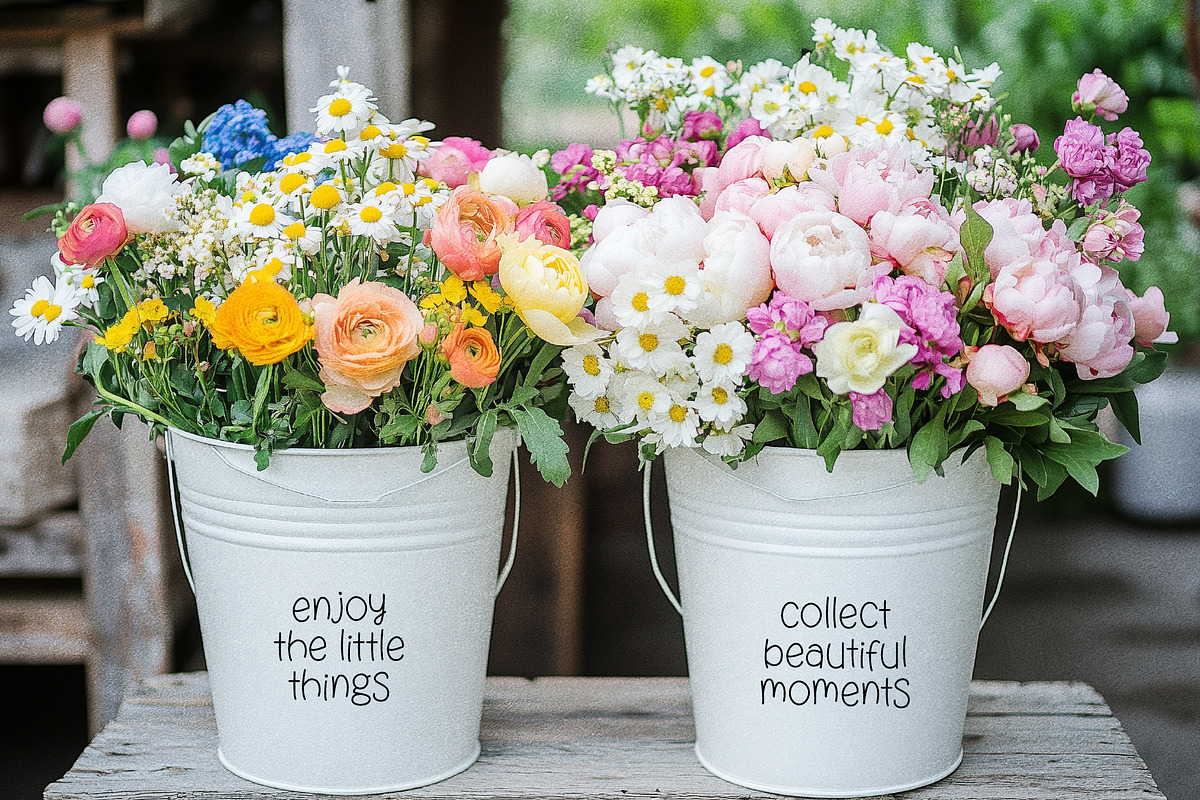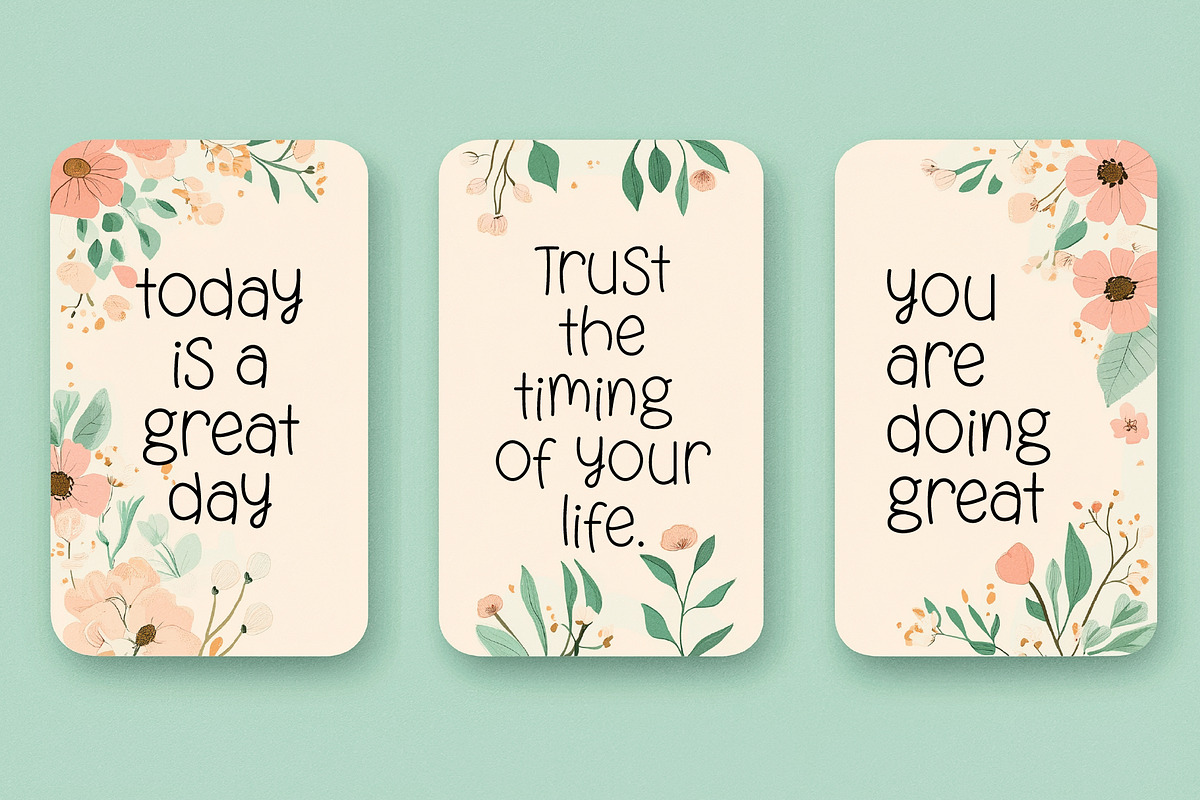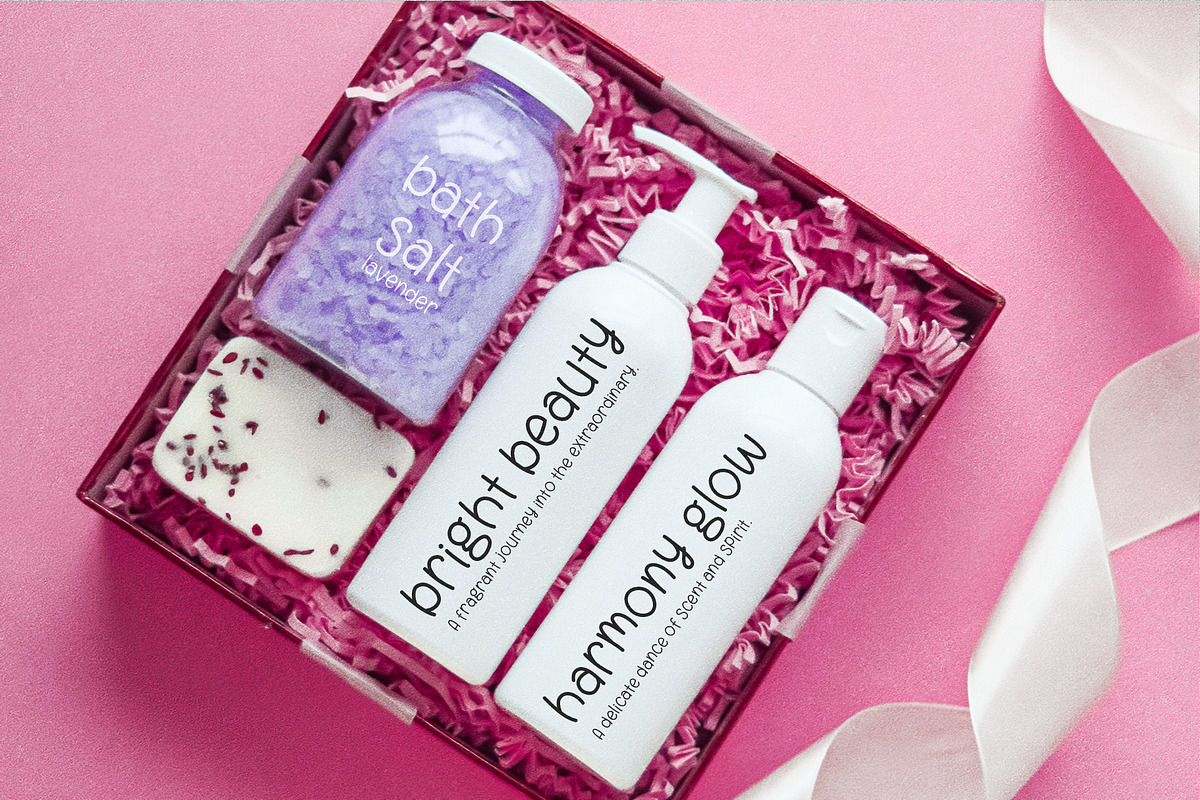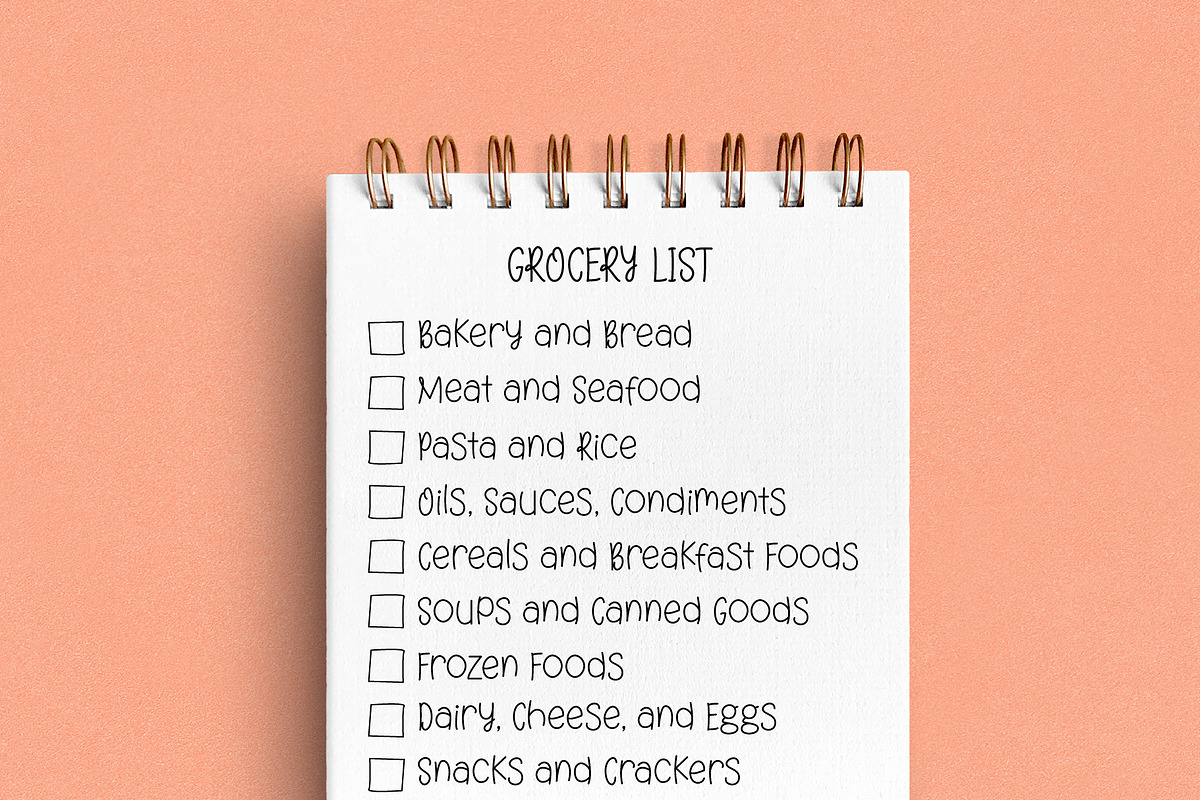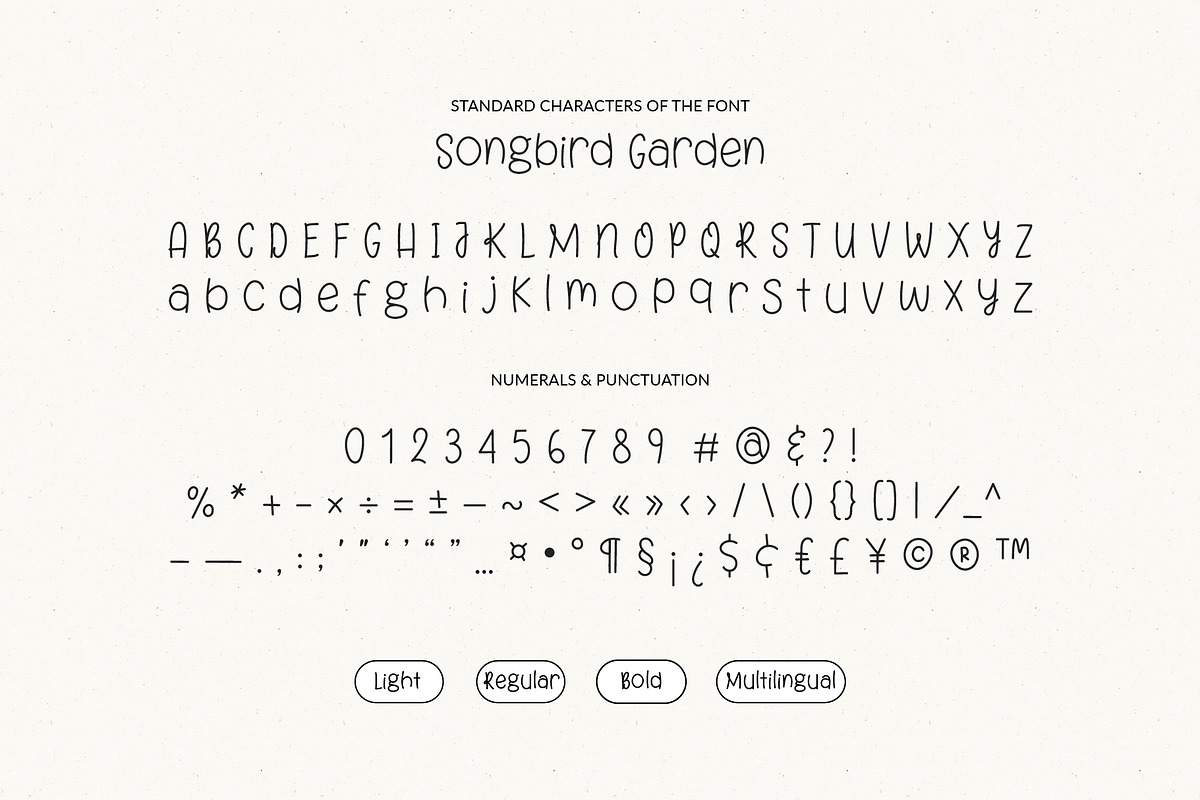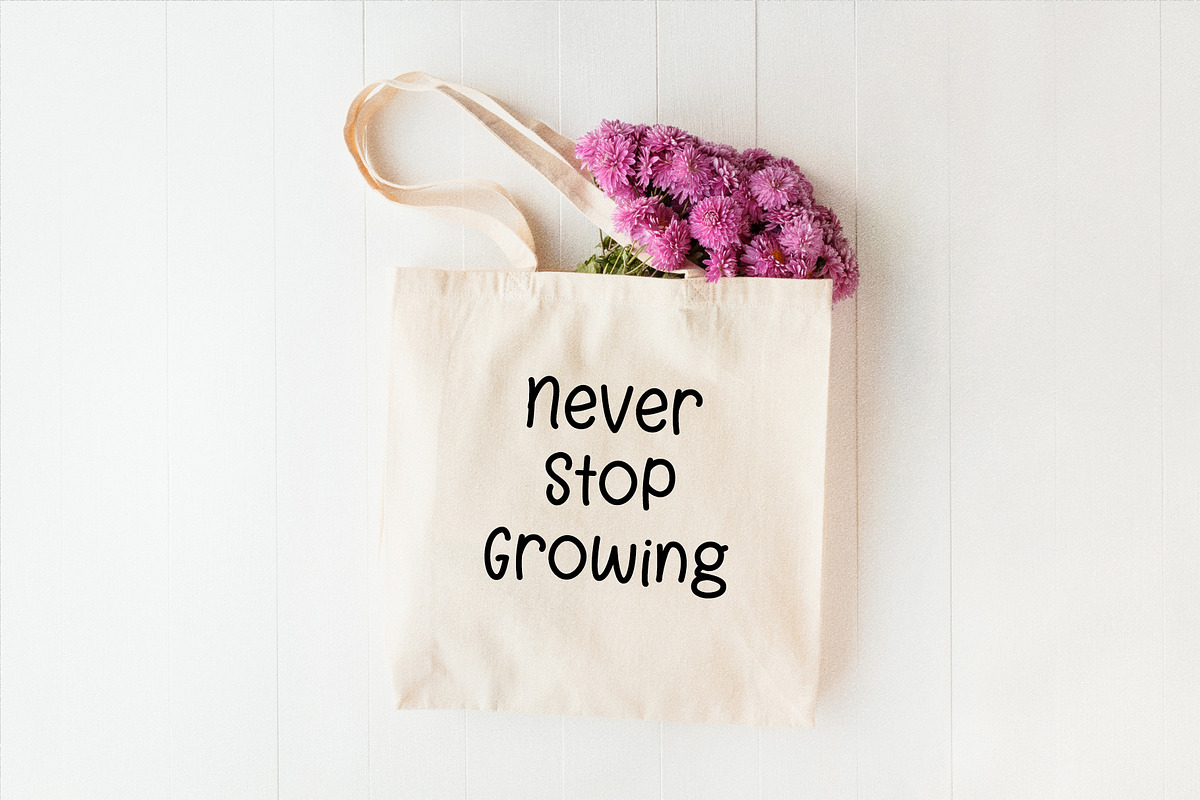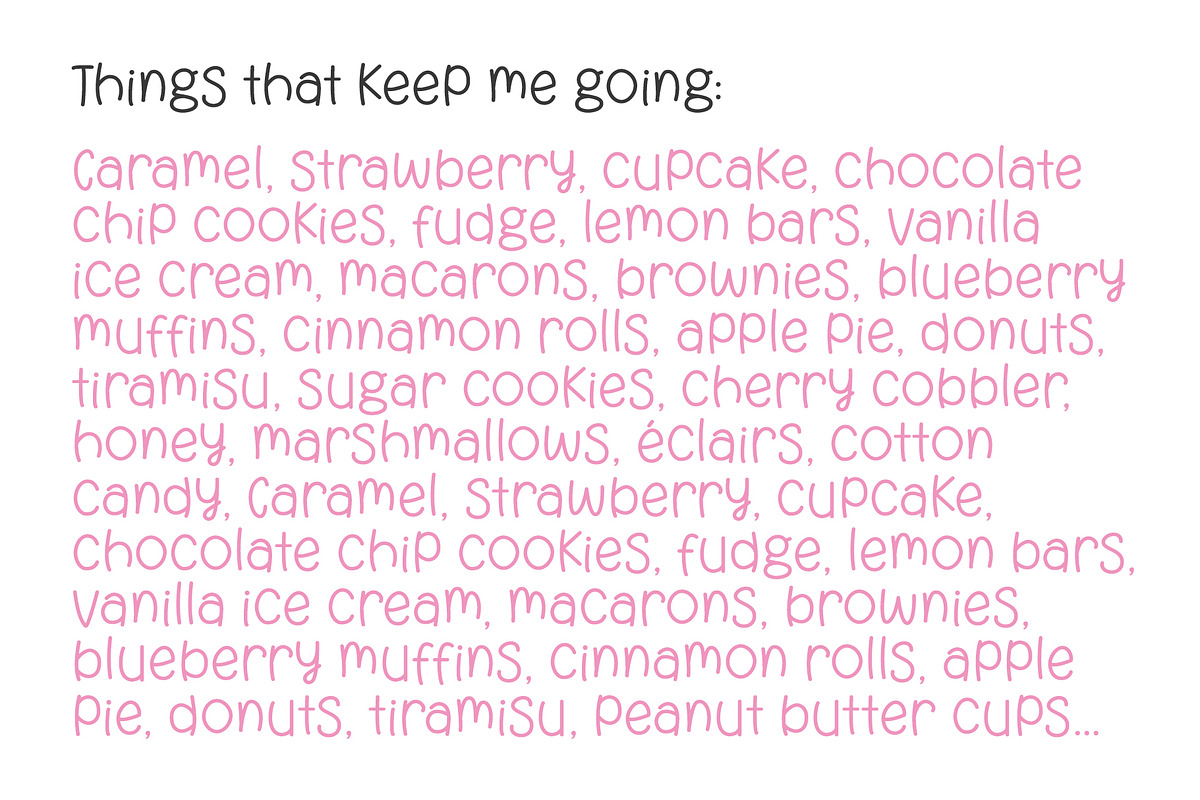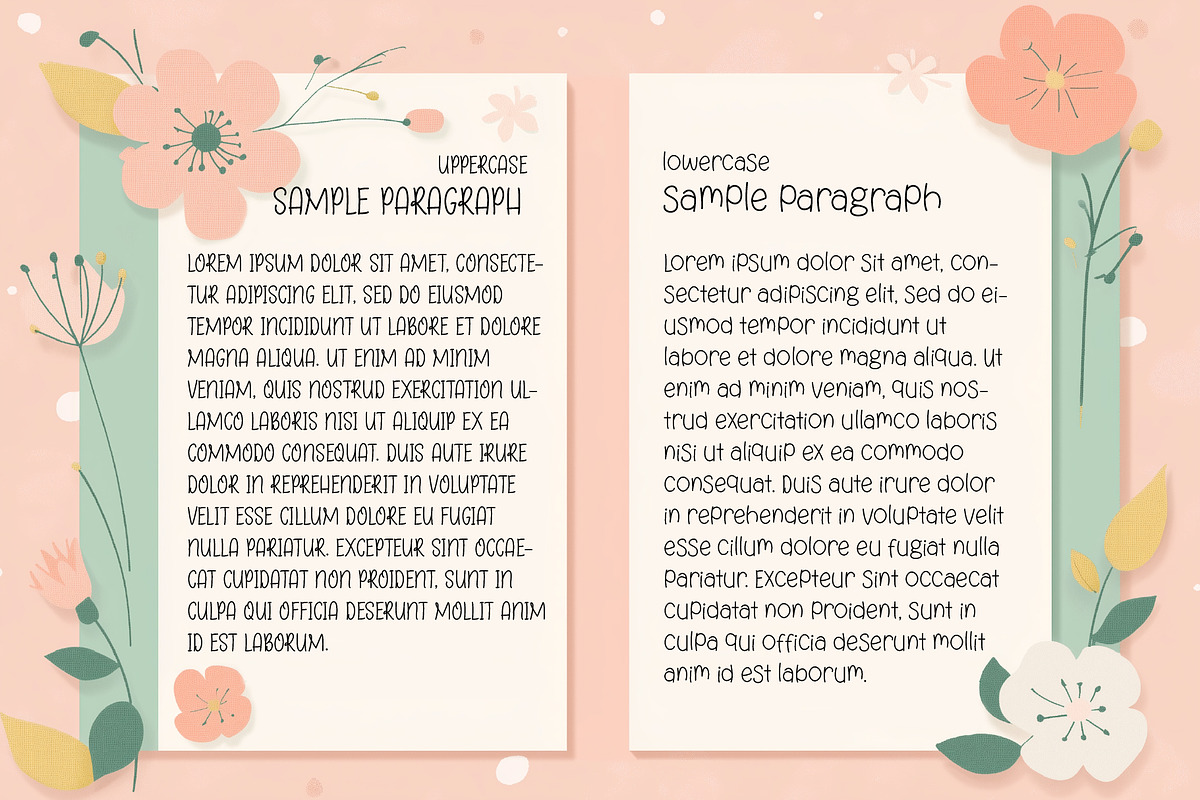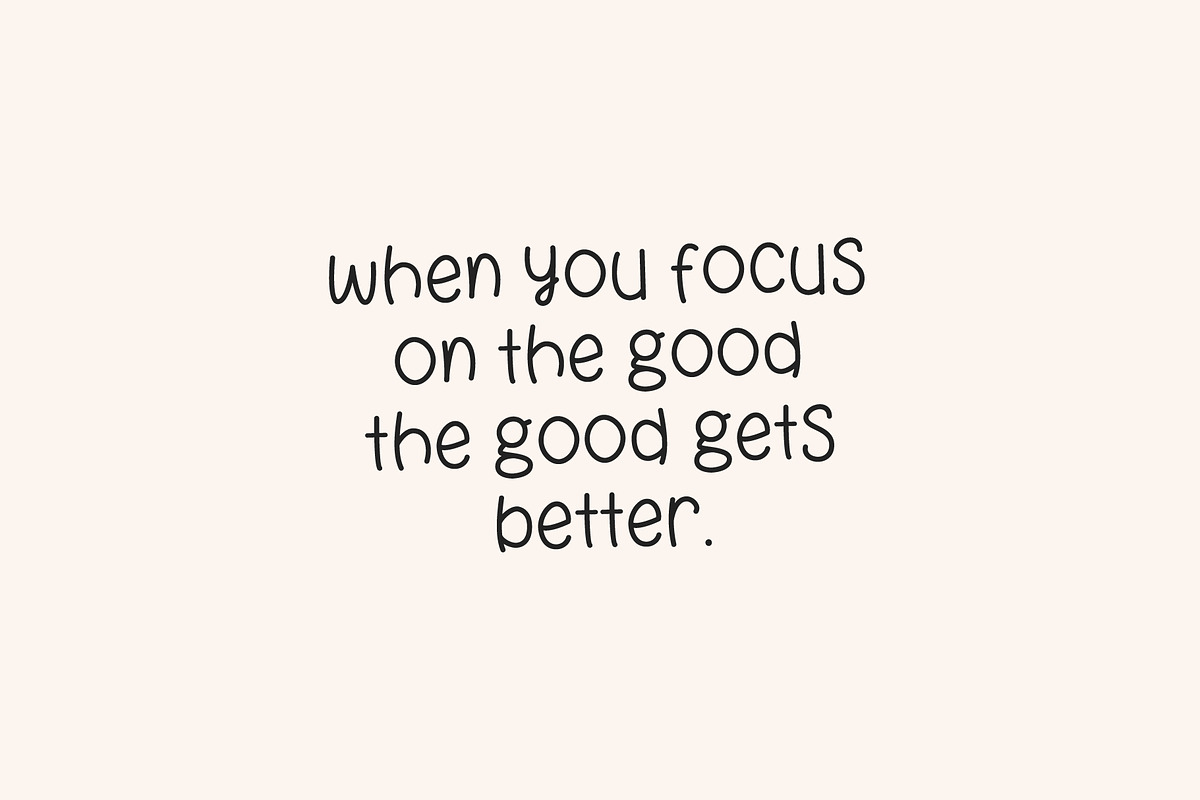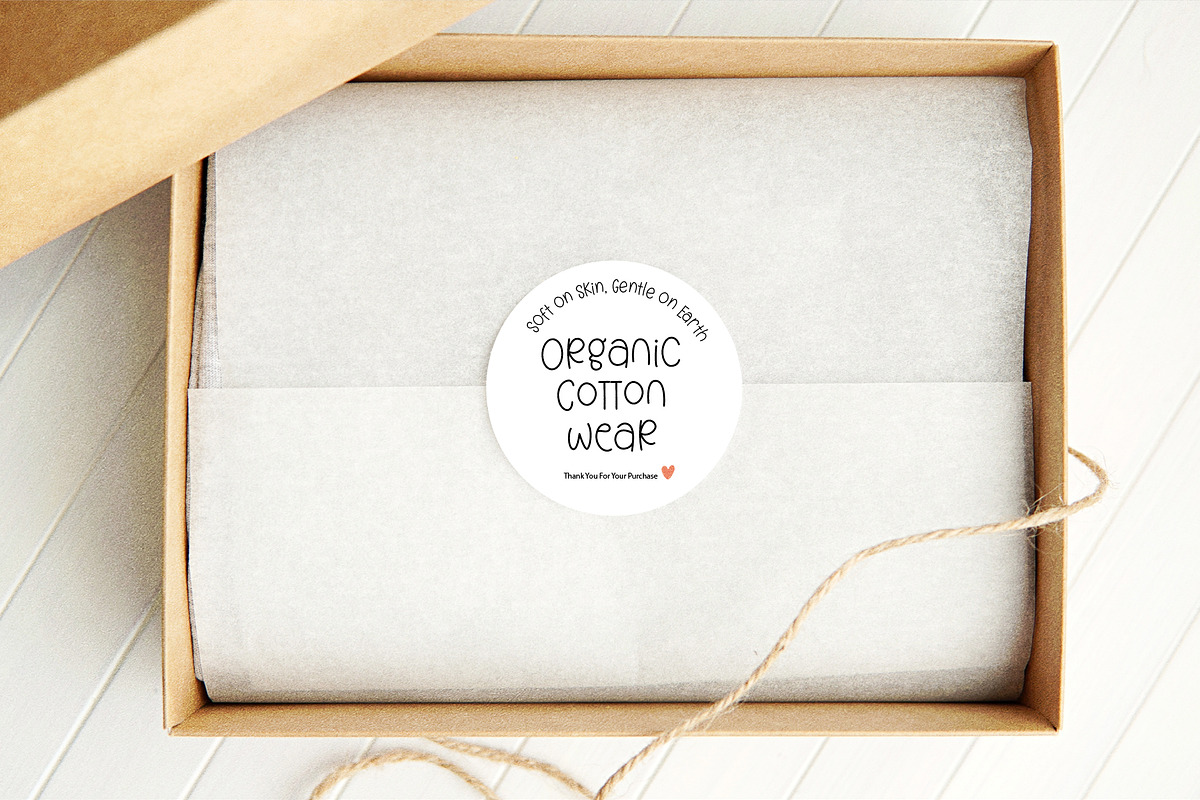
Songbird Garden - Handwritten Font
Say hello to Songbird Garden, a cute handwriting font that brings warmth and personality to your designs. It is great for craft projects, invitations, greeting cards, logos, branding, social media, printed goods or anything that requires cute handwritten lettering.
This versatile font comes in three weights—light, regular, and bold— and it has international characters.
FONT FEATURES
• Cute handwriting style
• Standart characters (lowercase, uppercase, numbers, punctuation)
• Multilingual characters:
• Supported Languages: